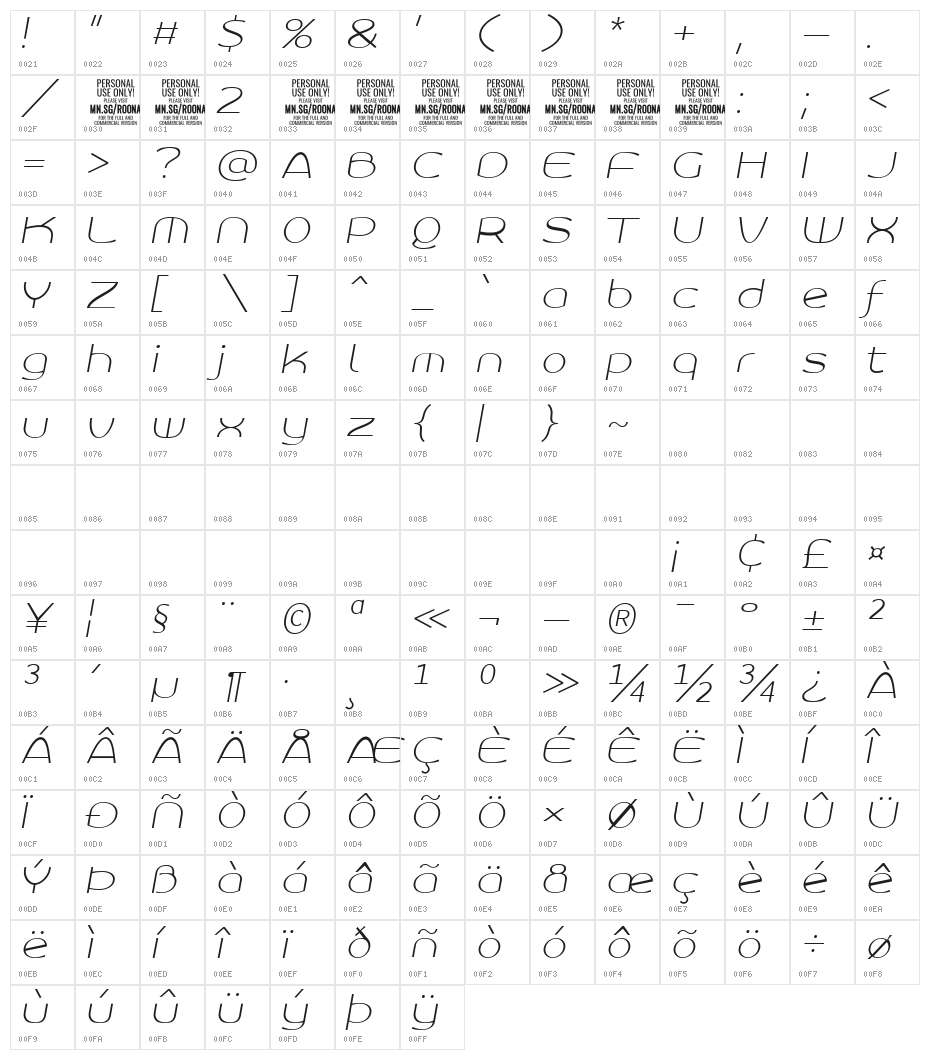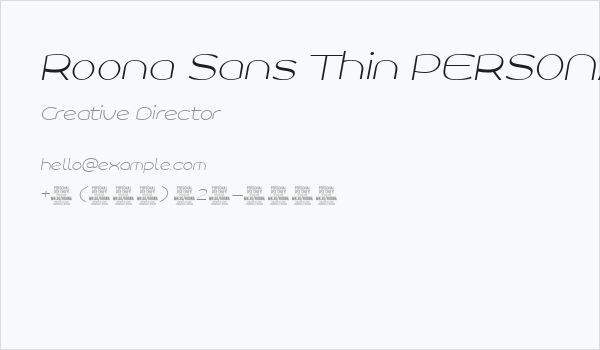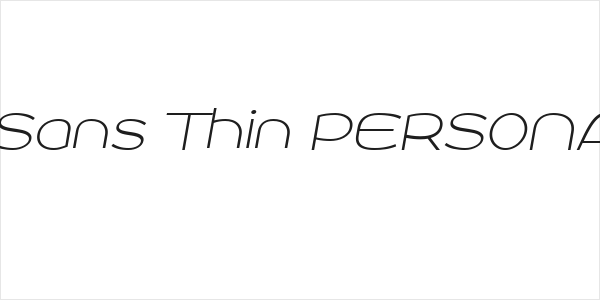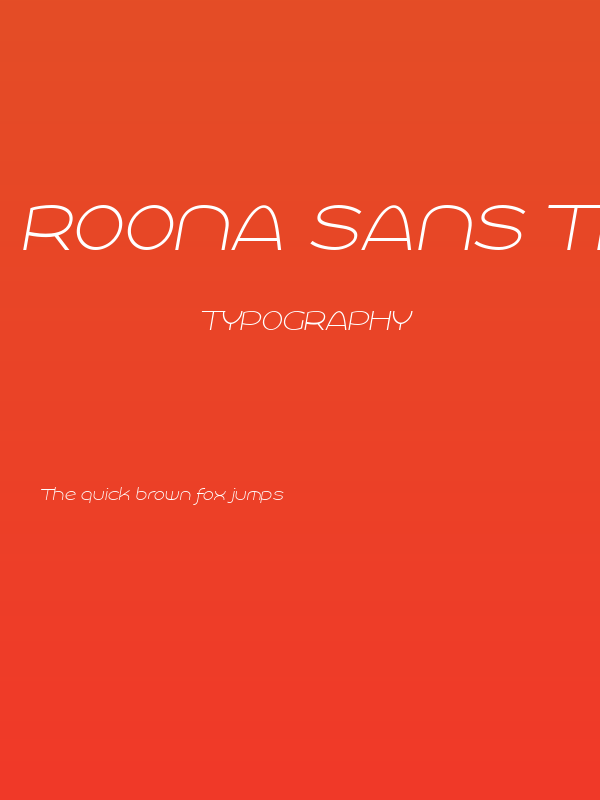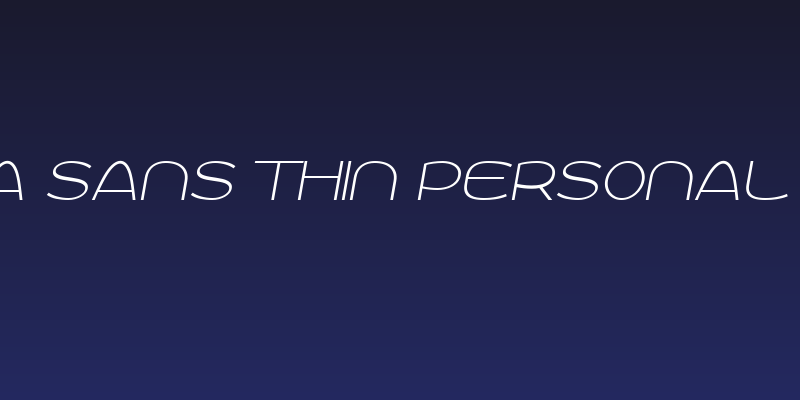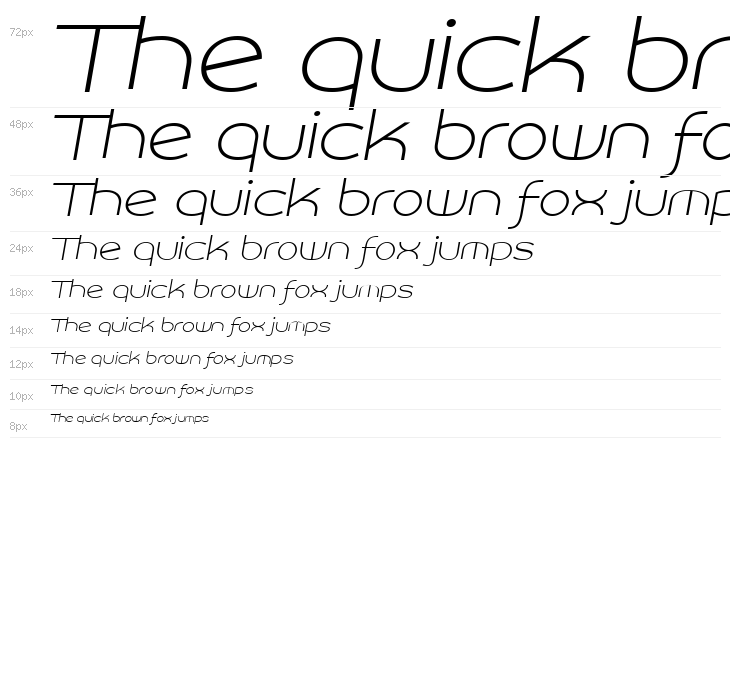
Roona Sans Thin PERSONAL Italic Font
Roona Sans Thin PERSONAL Italic Description
This font features a sleek and modern design with a thin, elegant structure. The characters are slightly italicized, giving them a dynamic and fluid appearance. The sans-serif style ensures a clean and minimalist look, making it suitable for contemporary design projects. The letters are evenly spaced, providing a balanced and harmonious visual flow. The font's thin strokes and subtle curves contribute to its sophisticated and refined aesthetic, ideal for projects that require a touch of elegance and modernity.
| Use Case | Headlines, Logos, Editorial design |
| Proposed Projects | Ideal for branding, editorial design, fashion magazines, and modern web design. |